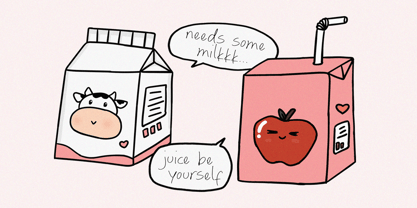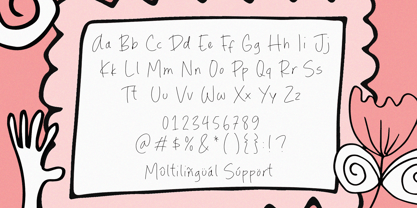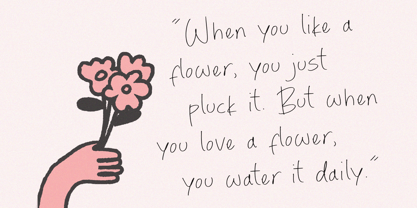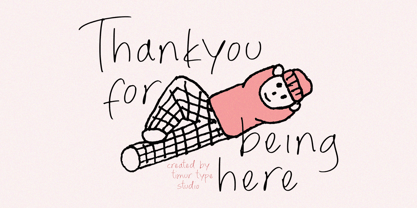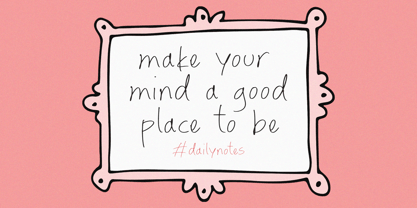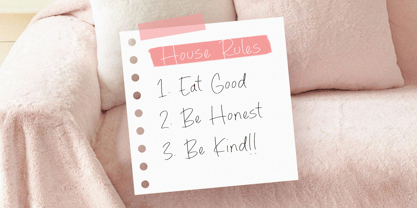
Yasmine Nebula
The Yasmine Nebula Font Family was designed by Wara Sigit Tri Pamungkas and published by Timurtype. Yasmine Nebula contains 1 styles. More about this family
Introduced by Timurtype Studio!
Yasmine Nebula is a Quirky Handwritten Font
This font is a quirky, handwritten font with a playful yet elegant touch. Its whimsical letterforms feature irregular strokes and subtle curves, evoking a sense of creativity and spontaneity. Perfect for branding, invitations, and artistic projects, Yasmine Nebula adds a charming, feel to any design.
Yasmine Nebula Font also supports multilingualism
Designers: Wara Sigit Tri Pamungkas
Foundry: Timurtype